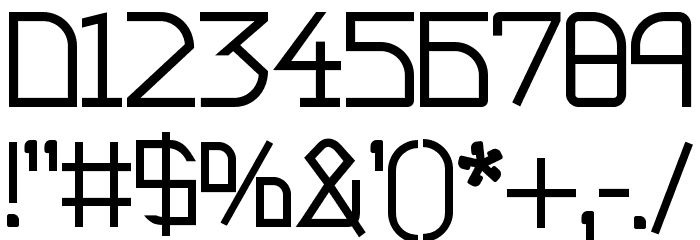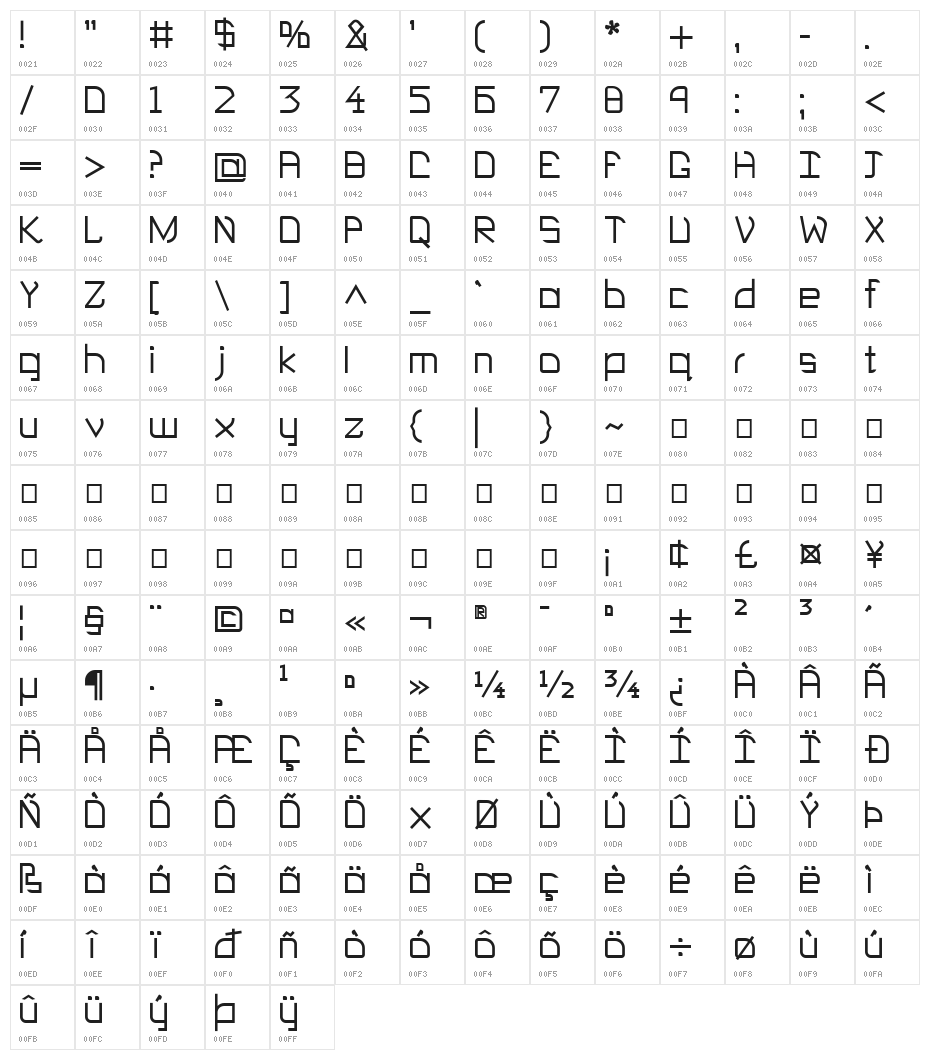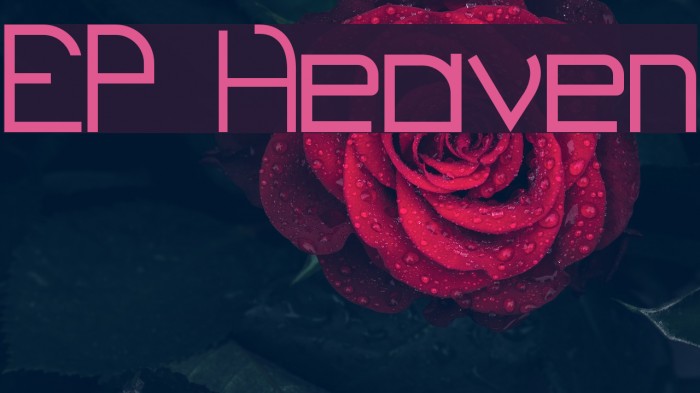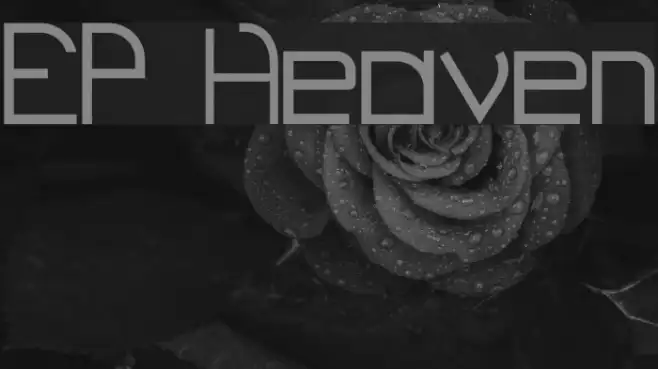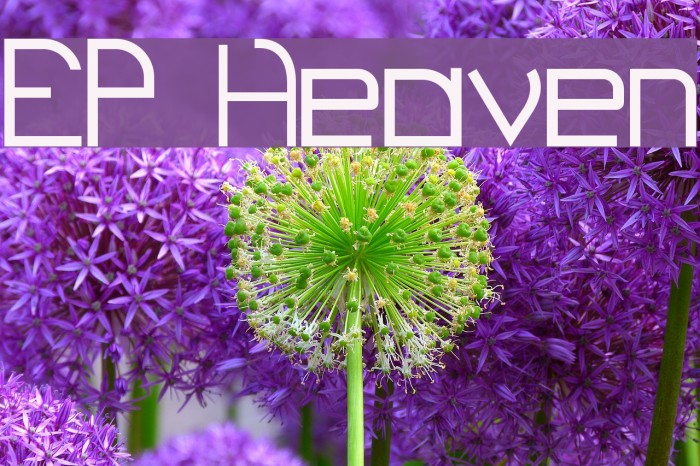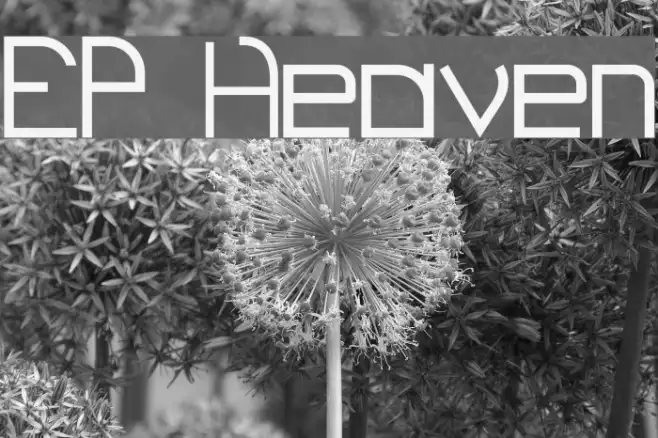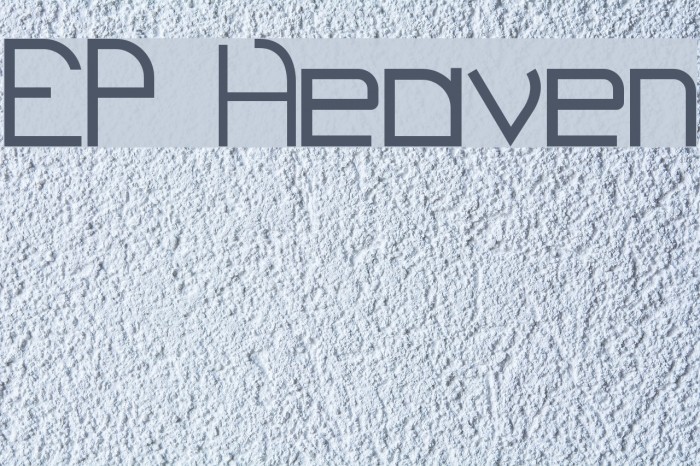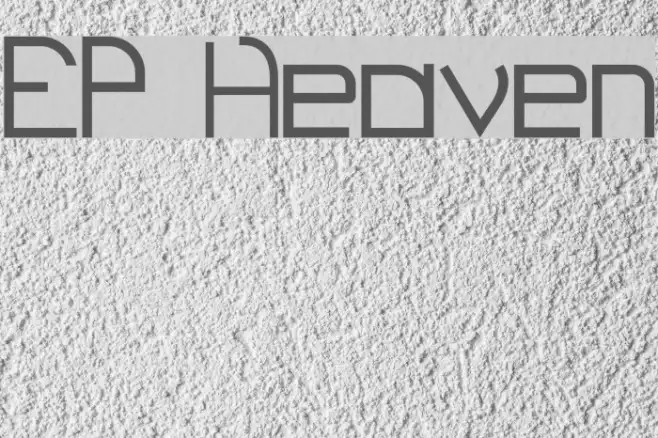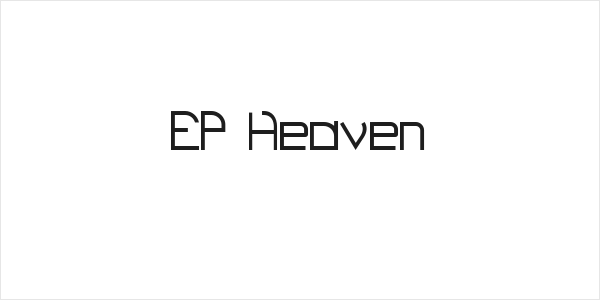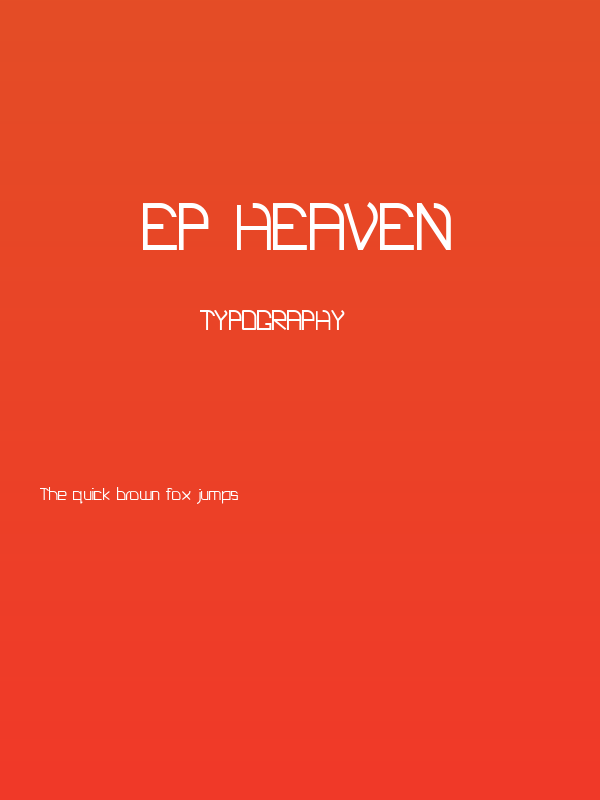
EP Heaven Font
EP Heaven Description
This font features a modern, geometric design with a distinct futuristic flair. The characters are constructed with clean, straight lines and sharp angles, giving it a technical and precise appearance. Uppercase and lowercase letters maintain a consistent height, contributing to a uniform look. The numerals and special characters follow the same design principles, ensuring cohesion across all glyphs. This font's unique style makes it suitable for projects that require a contemporary and innovative touch.
| Use Case | Logos, Headlines, Digital interfaces |
| Proposed Projects | Ideal for tech branding, digital interfaces, modern posters, and innovative product packaging. |